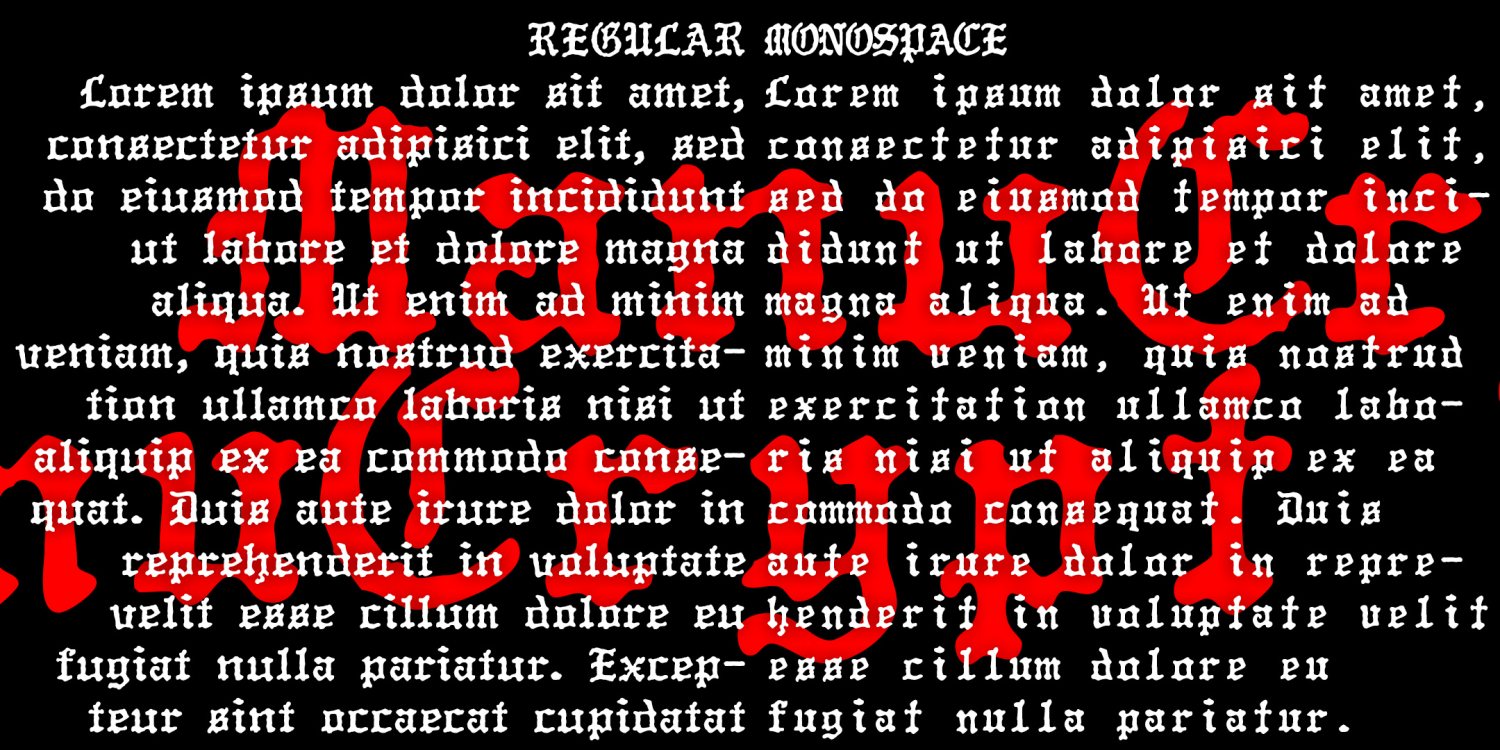
ManuCrypt
The MANUCRYPT fonts were inspired by an unusual example of “Olde English” (blackletter) typing. Preserving the original texture, these fonts have a look that’s much more “Haunted House” than “Wedding Announcement.” There are Regular and Monospace fonts depending on your mood, offering proportional spacing like a normal font, or fixed-width spacing like a typewriter.